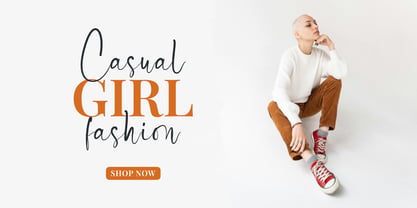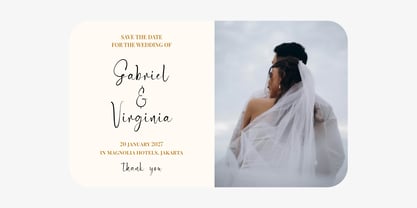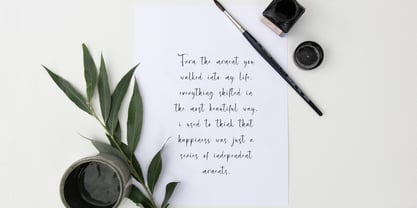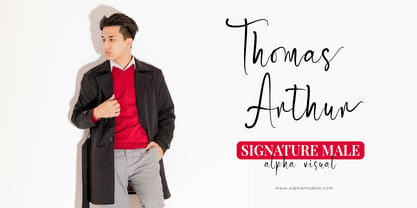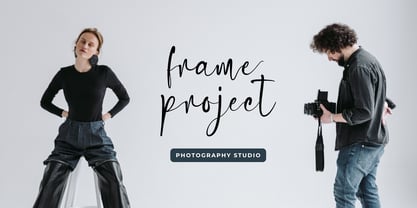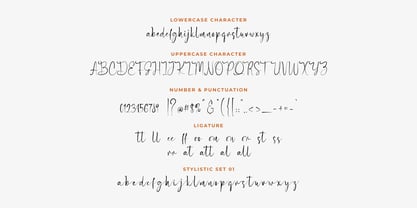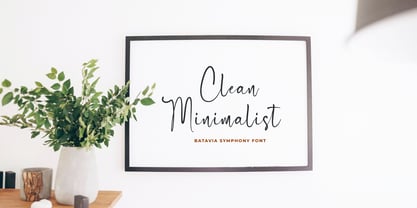
Batavia Symphony
by Bluestype Studio
The Batavia Symphony Font Family was designed by Jefri Dwi Alfatah and published by Bluestype Studio. Batavia Symphony contains 1 styles. More about this family
Batavia Symphony is a sophisticated modern handwritten script font family that seamlessly bridges the gap between authentic penmanship and digital precision. Characterized by its natural, rhythmic flow and expressive brush-like strokes, this elegant typeface delivers an organic yet highly polished aesthetic.
Designed with meticulous attention to connection points and side bearings, Batavia Symphony ensures maximum readability even in demanding design layouts. Its elegant curves and fluid swashes make it an exceptional choice for editorial design, luxury branding identities, high-end packaging, logo design, and premium wedding stationery.